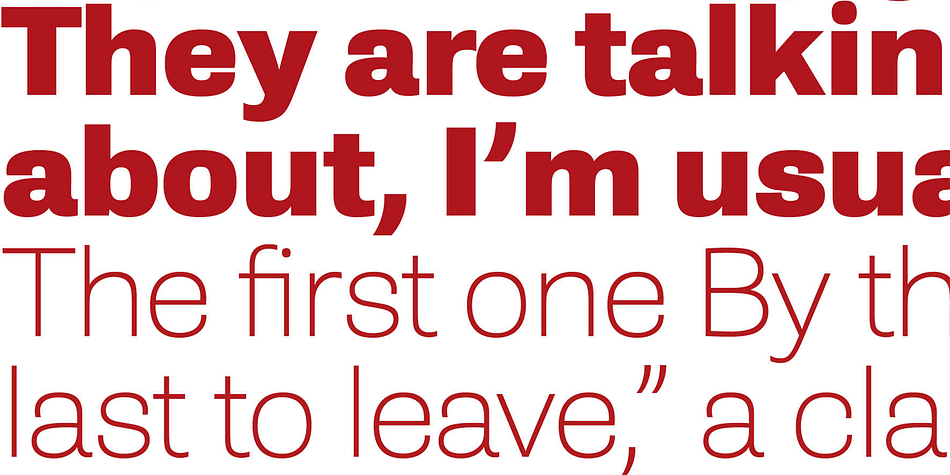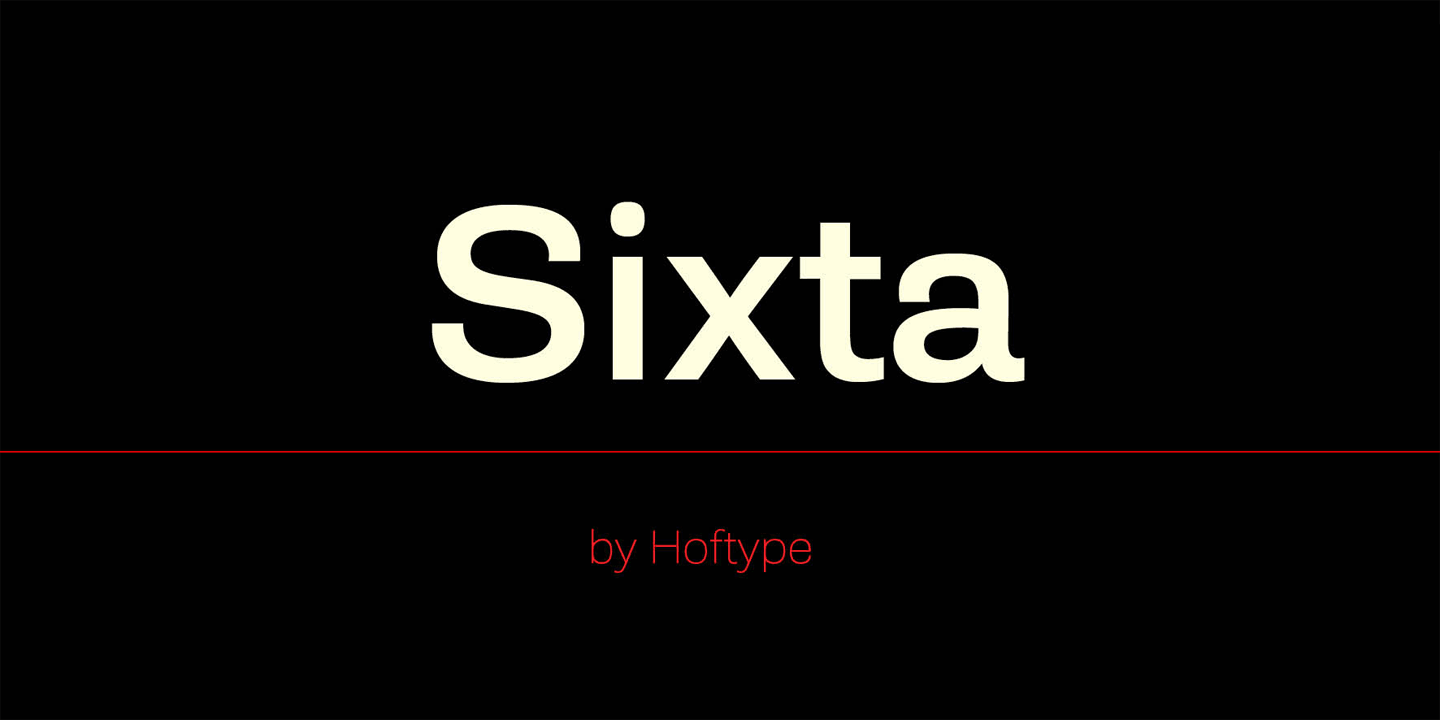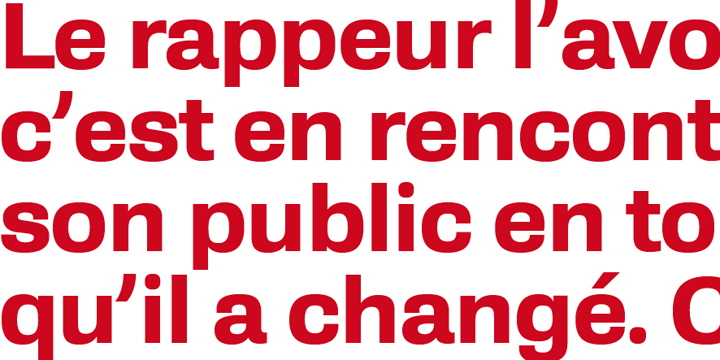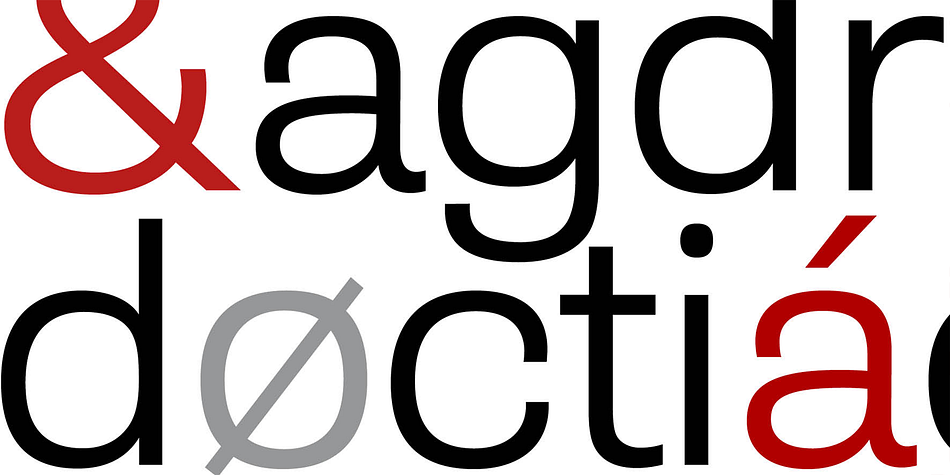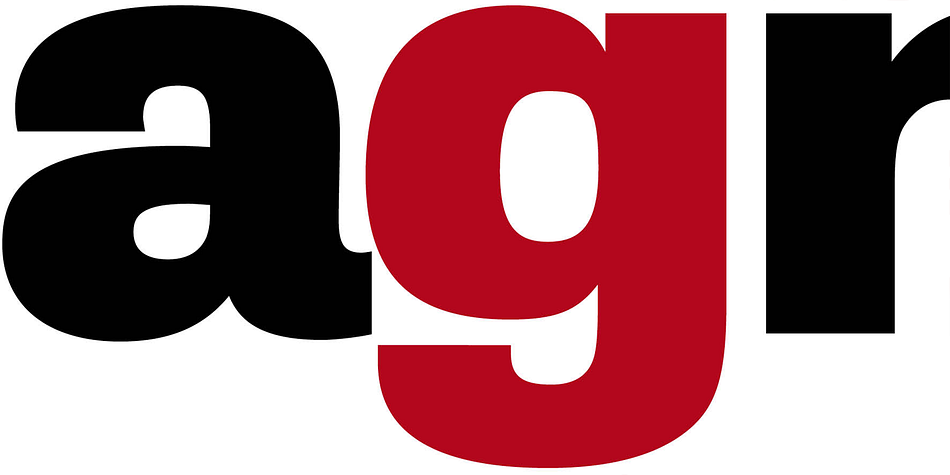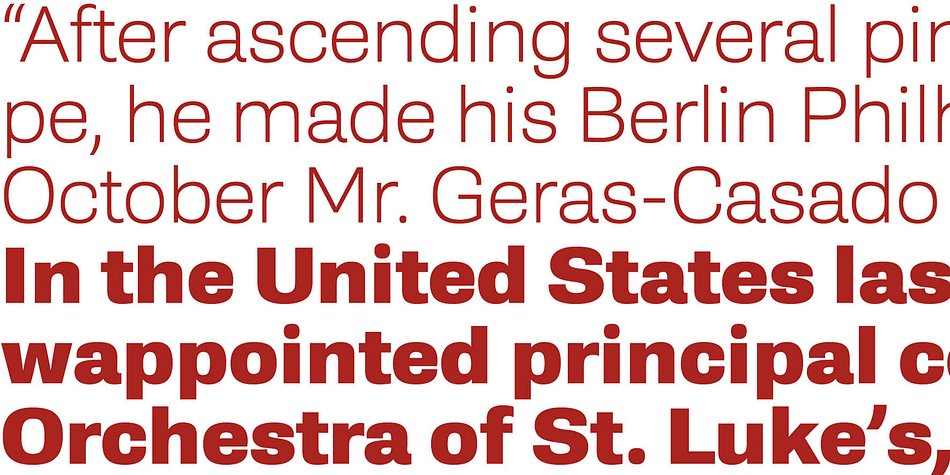
Sixta is a sans serif font family. This typeface has eight styles and was published by Hoftype.
Sixta, a new monoline face with a classical background, has comfortable proportions and a puissant appearance.
Although it has plenty of movement and is eventful, its discreet stroke ductus makes it excellent both for text and display.
Sixta comes in eight weights, in OpenType format and with extended language support for more than 40 languages. All weights contain proportional lining figures, tabular lining figures, proportional old style figures, lining old style figures, matching currency symbols, fraction- and scientific numerals.